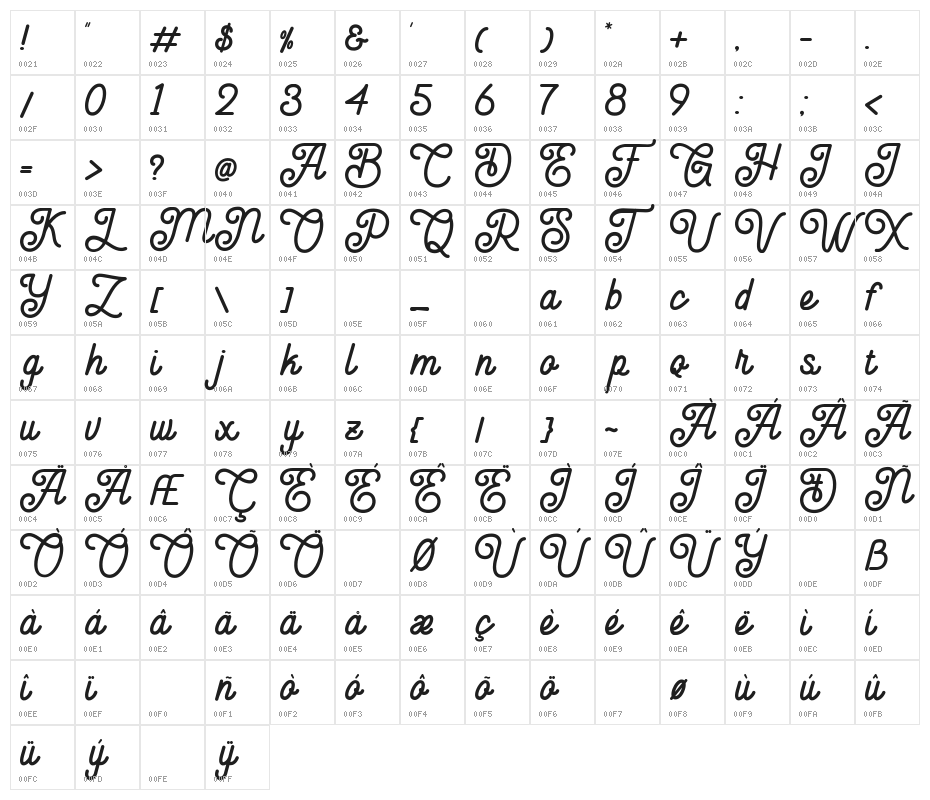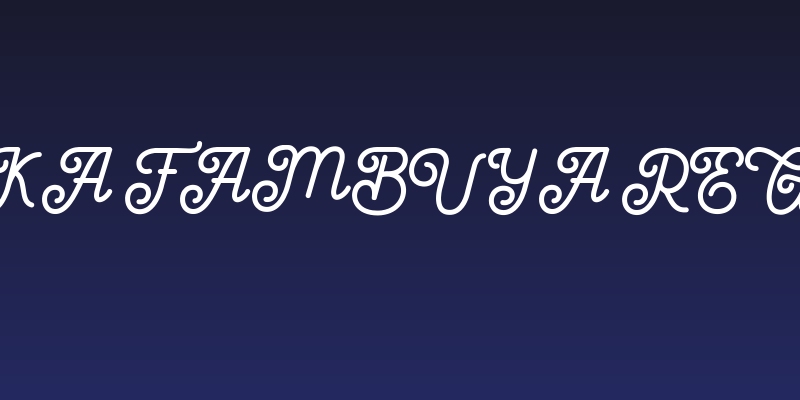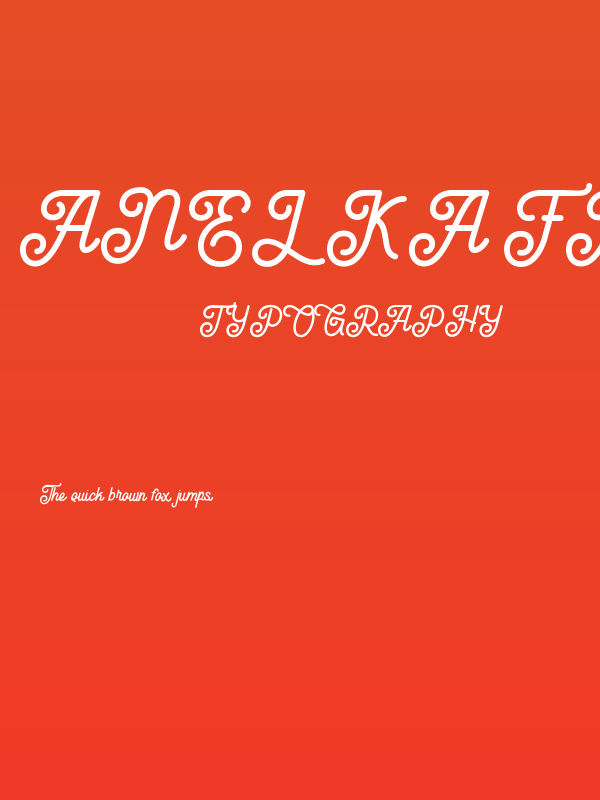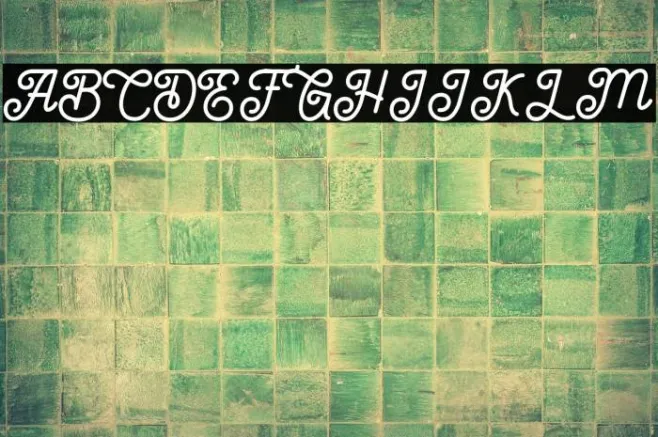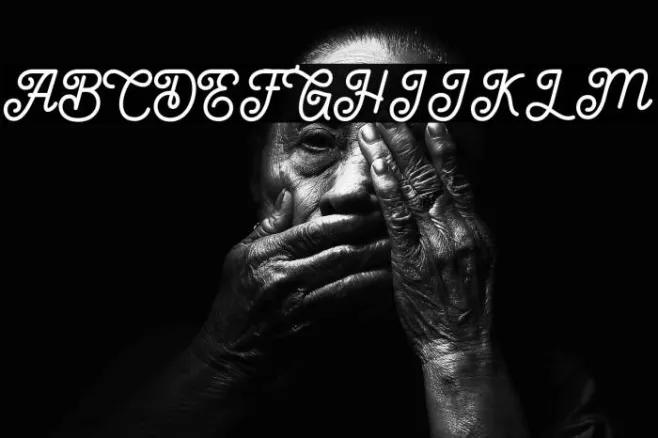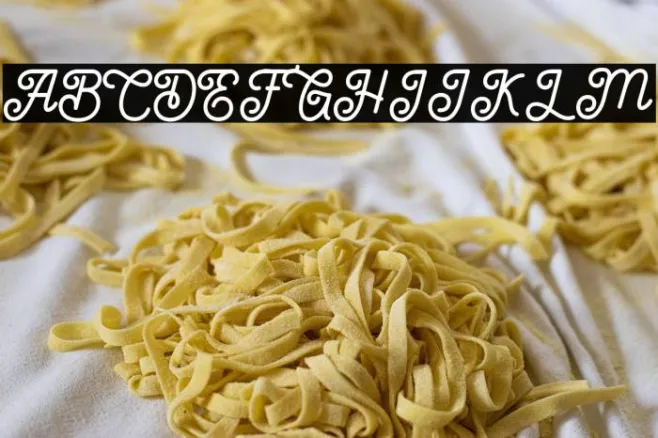
Anelka Fambuya Regular Font
Anelka Fambuya Regular Description
This font features a playful and elegant script style with a flowing, cursive design. The uppercase letters are adorned with subtle flourishes, giving them a decorative touch, while the lowercase letters maintain a smooth and connected appearance. The numerals are bold and clear, ensuring readability. Special characters are creatively styled, adding to the font's charm. The overall design is consistent, with a balanced weight that makes it suitable for various creative applications.